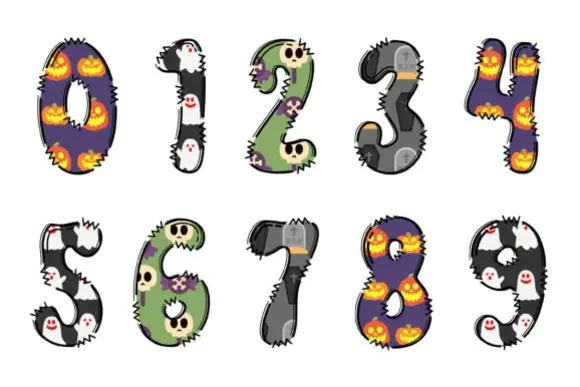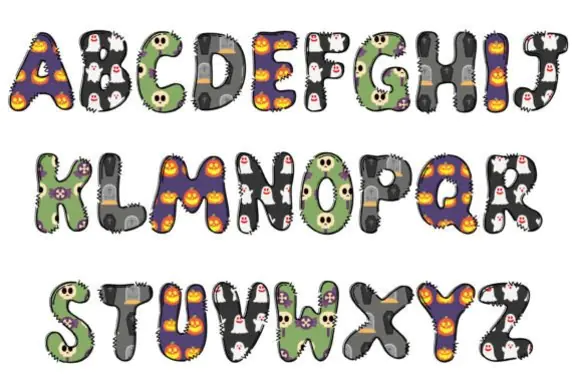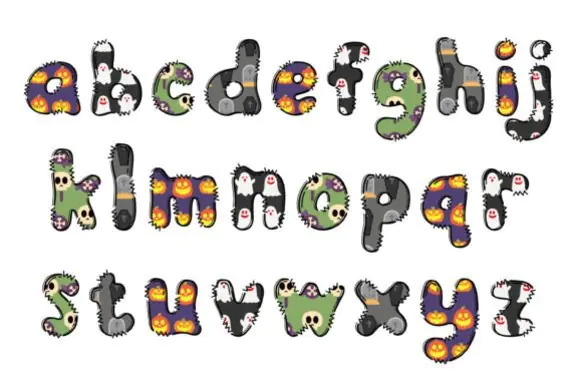
Halloween Font | Playful Artistic Halloween Font for Children’s Books, Posters, Invitations, Greeting Cards, Cricut Crafts & Spooky Designs
Create fun, playful, and artistic seasonal designs with Halloween Font, a creative display font that is perfect for Halloween-themed projects, children’s designs, posters, invitations, greeting cards, printable artwork, and craft projects.
This font has a whimsical and friendly style that works well for designs aimed at kids, family-friendly Halloween events, playful party decorations, classroom materials, storybook graphics, stickers, mugs, t-shirts, and seasonal social media posts. Its artistic look makes your typography feel engaging, cheerful, and visually attractive.
• Halloween invitations
• Children’s book designs
• Greeting cards
• Posters and banners
• Kids’ Halloween crafts
• T-shirt and mug designs
• Stickers and vinyl decals
• Classroom Halloween materials
• Printable wall art
• Party decorations
• Storybook-style designs
• Playful and artistic Halloween style
• Great for children’s books and kid-friendly projects
• Useful for posters, invitations, cards, and crafts
• Perfect for both digital artwork and physical craft products
Halloween Font is a great choice for designers, crafters, teachers, small business owners, and digital product sellers who want to create cheerful, spooky, and creative Halloween designs with a fun artistic touch.